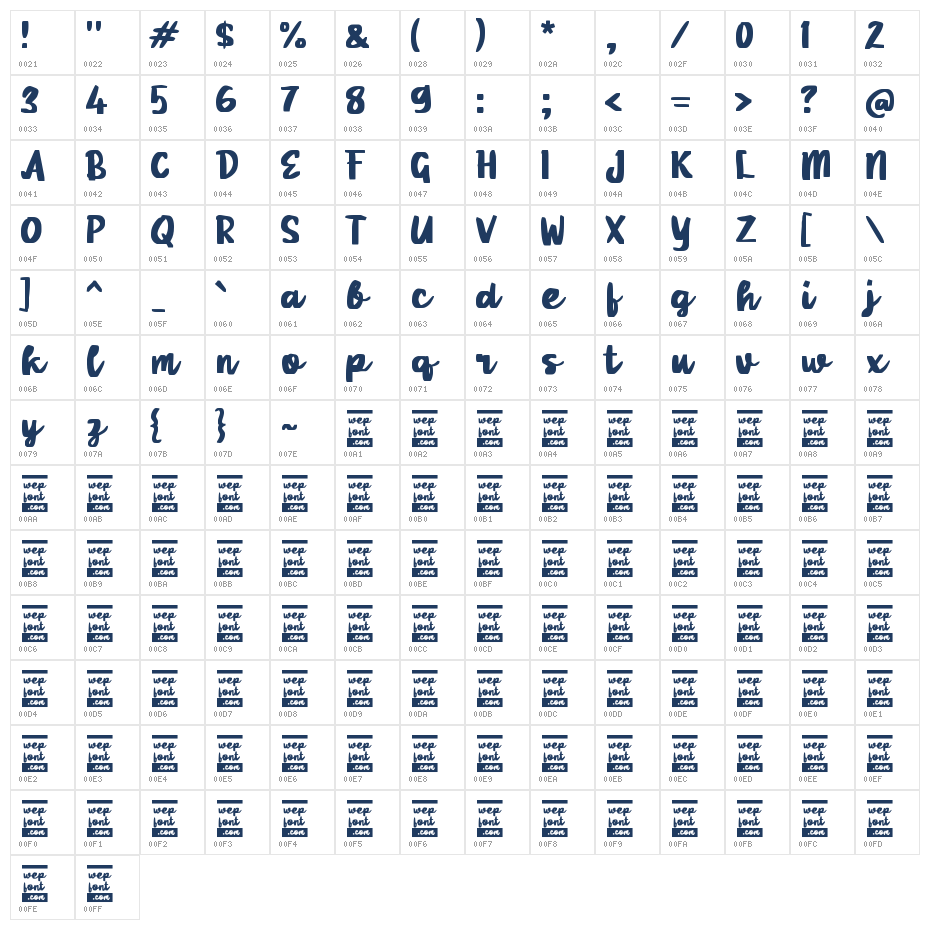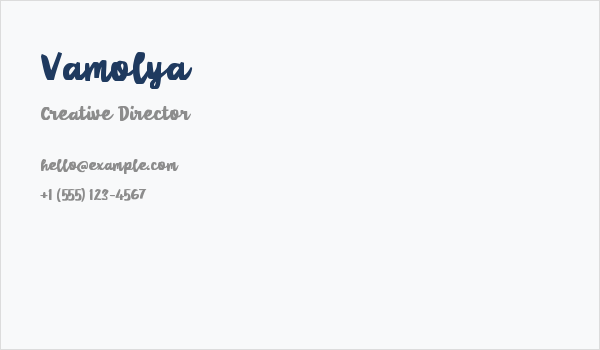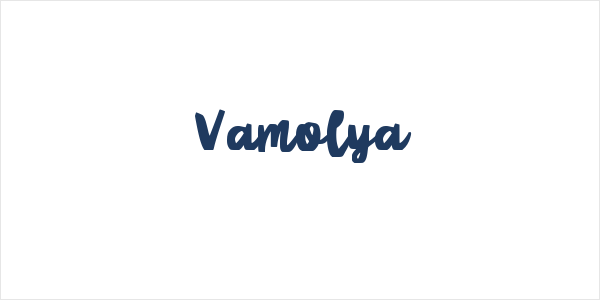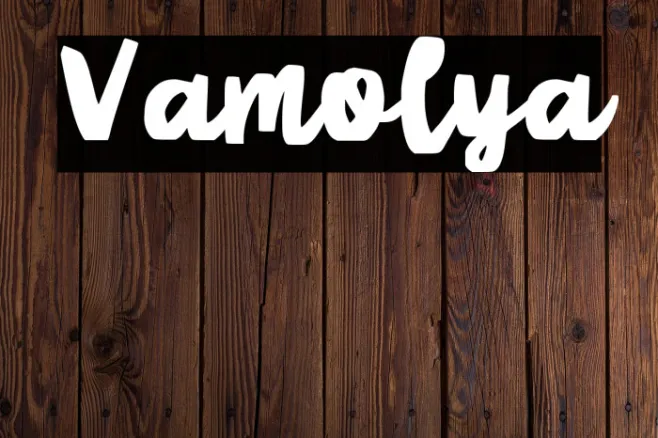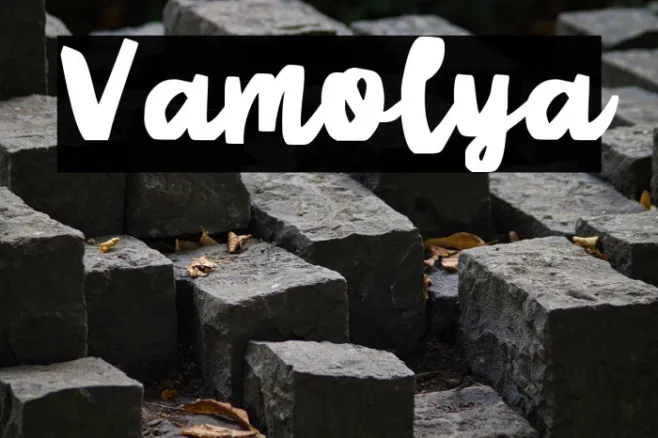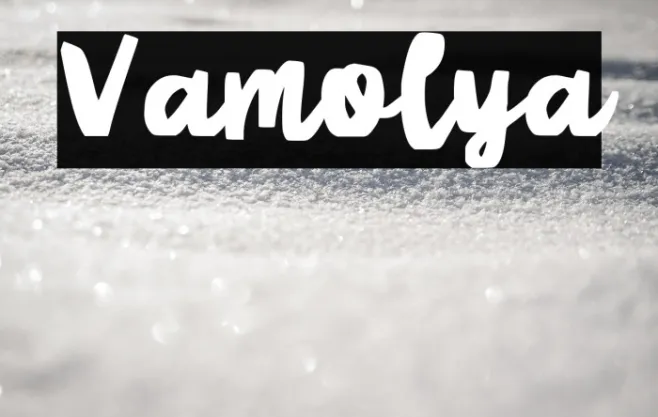
Vamolya Font
Vamolya Description
A bold, playful, handwritten style font with rounded edges and a casual appearance.
| Use Case | Headlines, Logos, Posters, Children's materials |